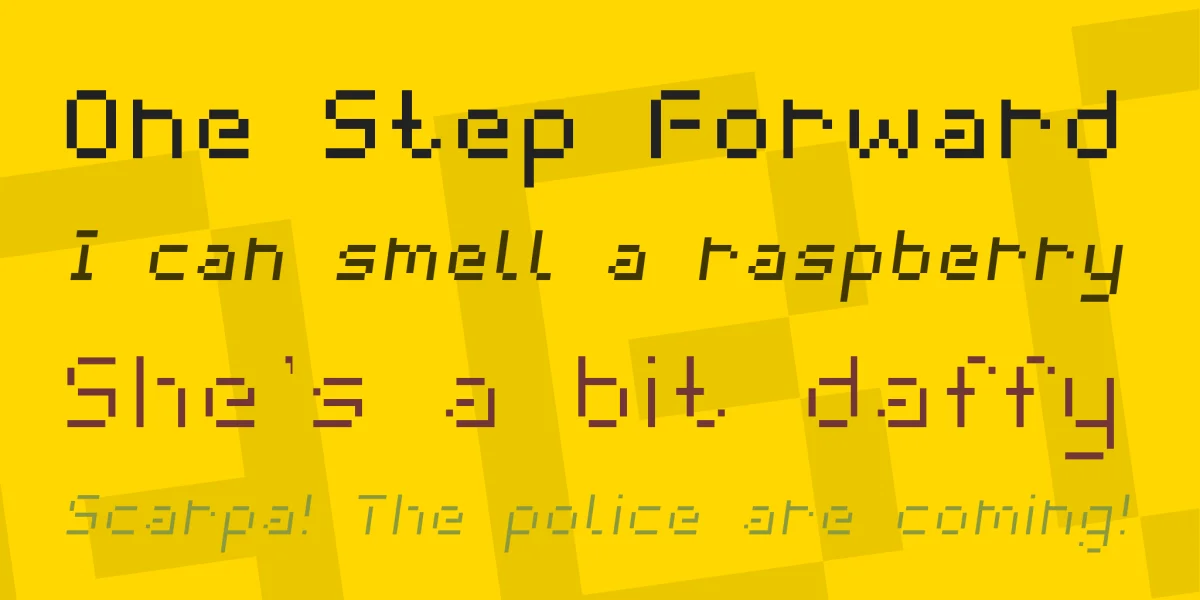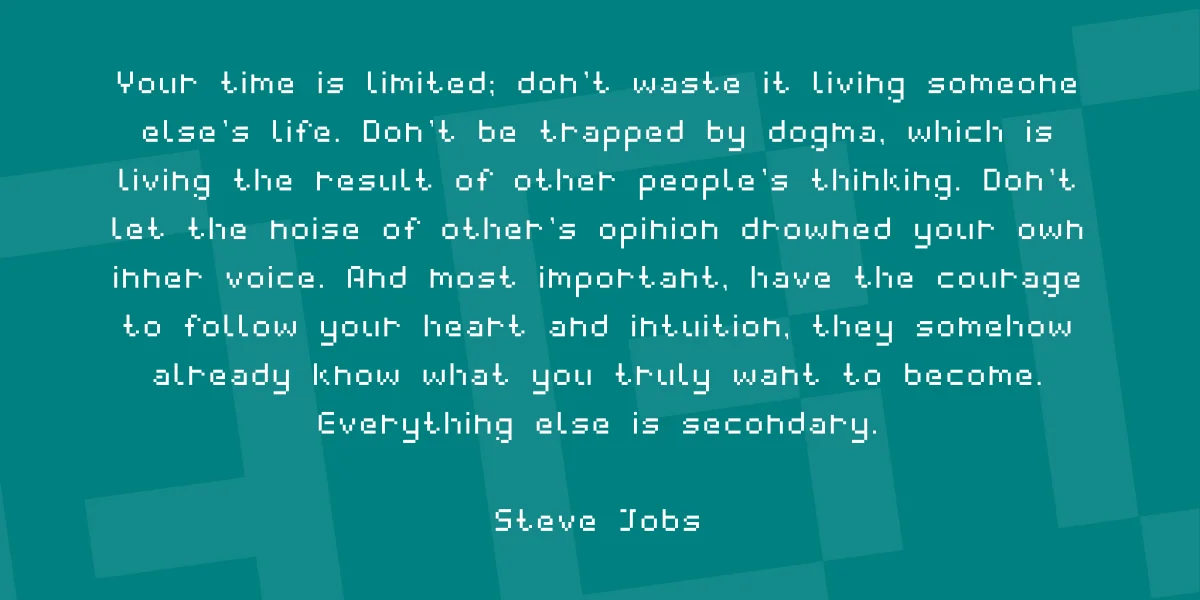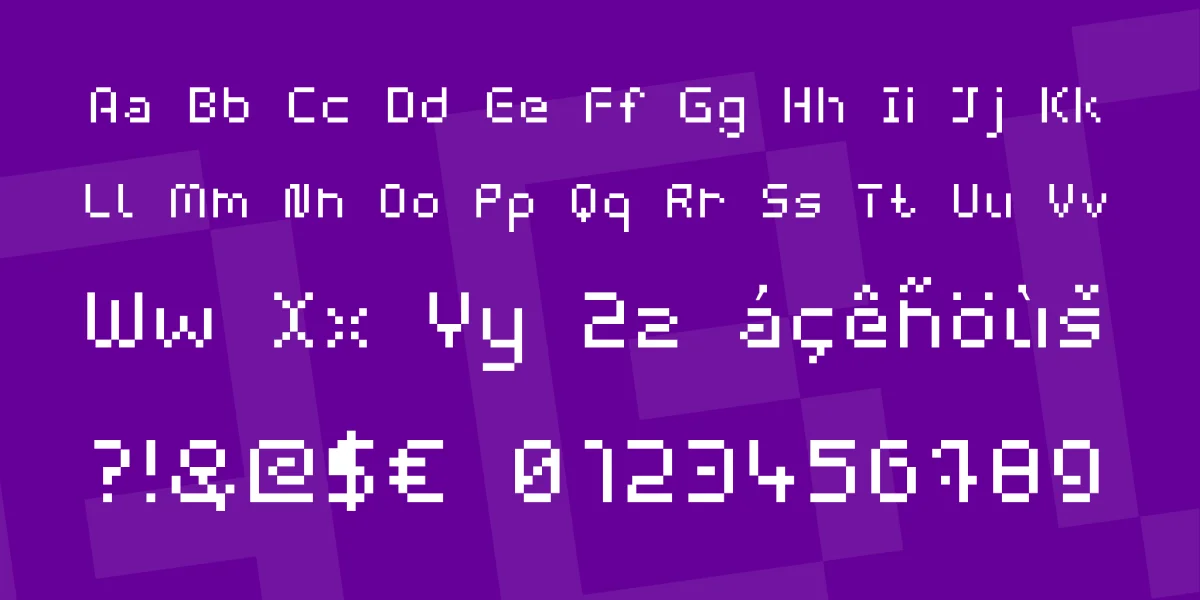
Headline Font / Display Font / Pixel Bitmap Font "Web Pixel Bitmap" with 10 stlyes (regular, medium, bold, black, light + 3x italic) & 391 glyphs inkl. accents & €